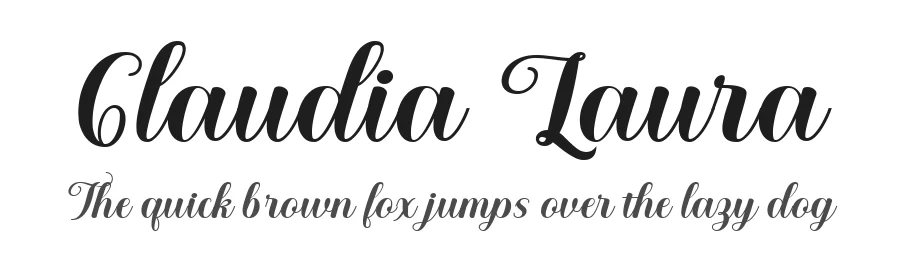
About Anzilam Font
Anzilam is a modern calligraphy font. It brings a beautiful and attractive typeface. Made for any
professional project branding. It is the best for logos, branding, wedding and quotes.
Features include:
Stylish Sets
Standard Ligatures
Multilingual Supports
PUA Encoded
Numerals and Punctuations
DIN STUDIO
| Designer | Donis Miftahudin |
Anzilam Font is a script font that shines as a display or heading face. Pair it with a clean sans-serif or serif font for body text — the contrast creates a clear hierarchy while the two styles stay balanced and easy to read.
Anzilam Font
by Din Studio